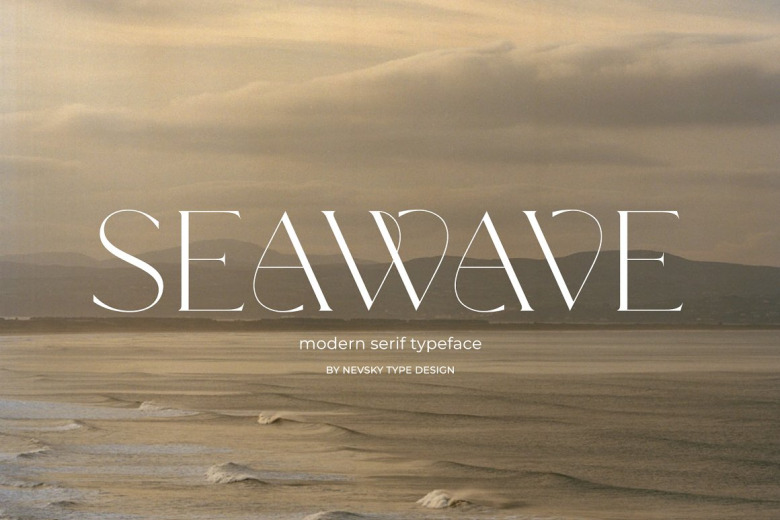
NT Seawave Font
NT SEAWAVE is a new serif font. It teases your eyes with its curves yet still able to maintain its classy composure. Great in layout design for quotes or body copy, best used as a display for headings, logos, branding, magazines, product packaging and invitations.
NT Seawave Serif Font